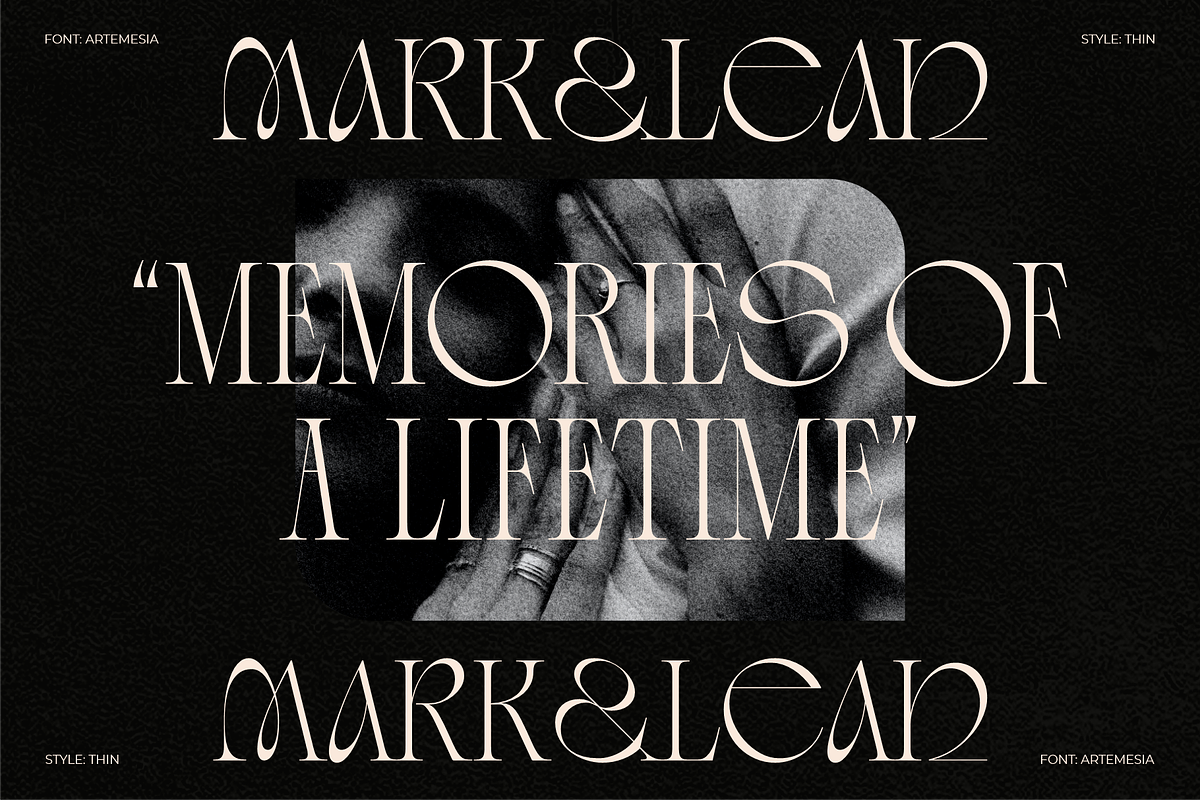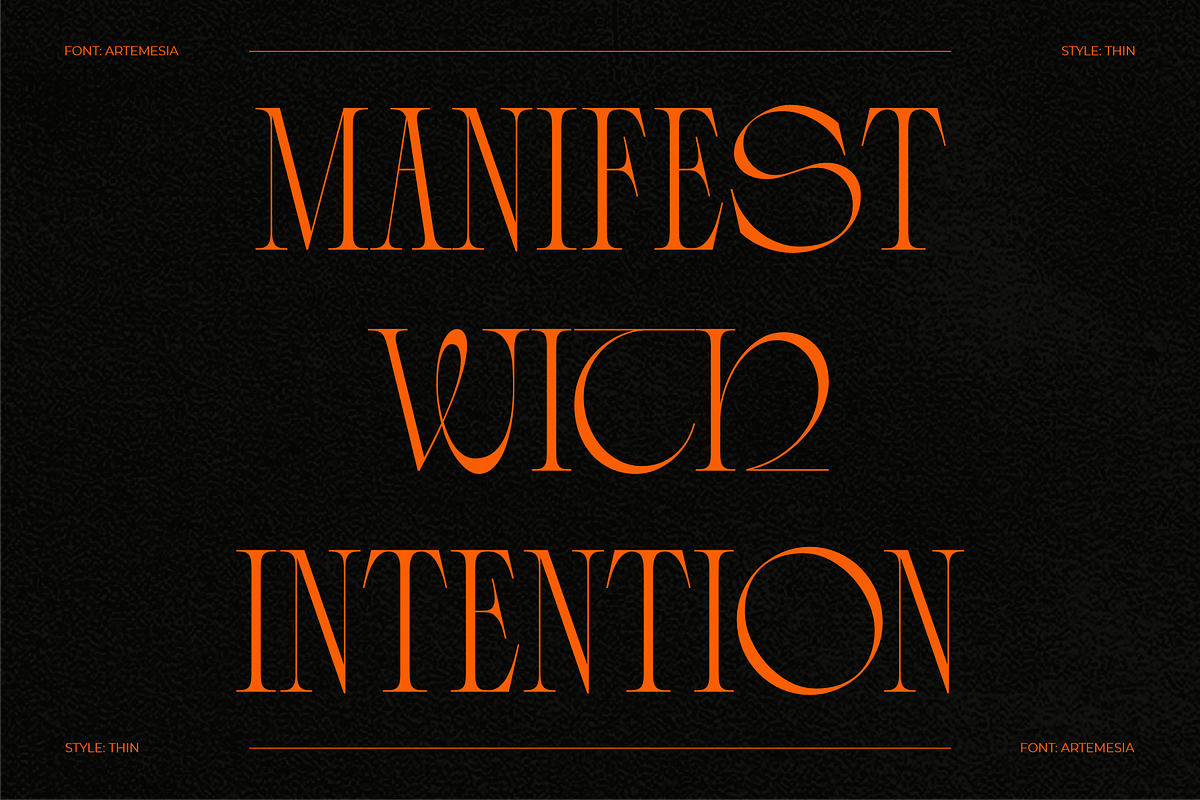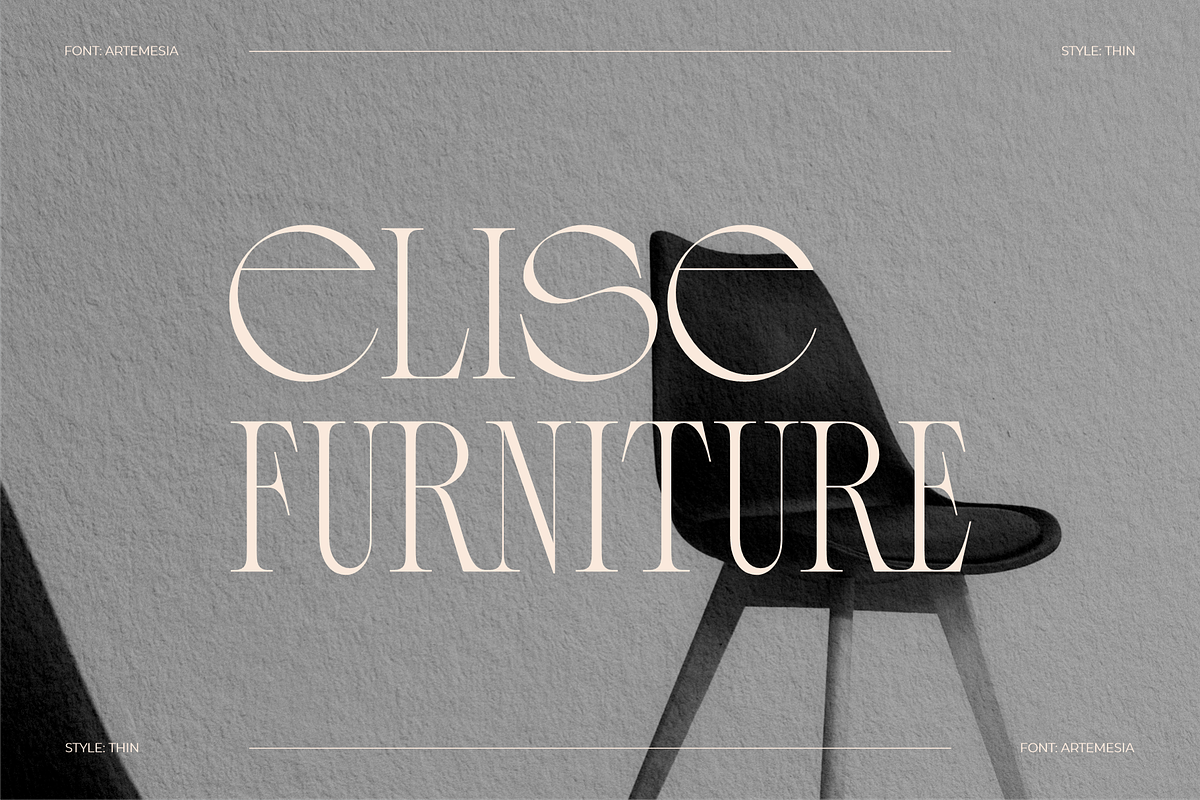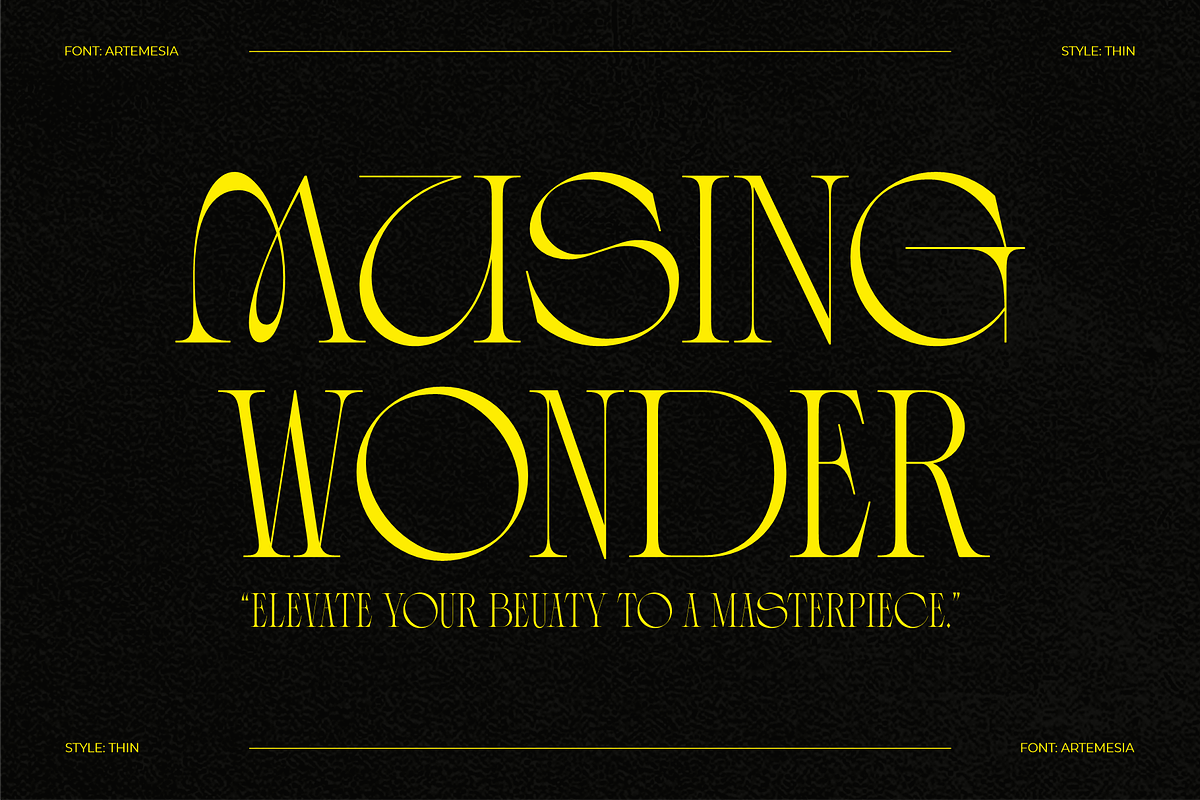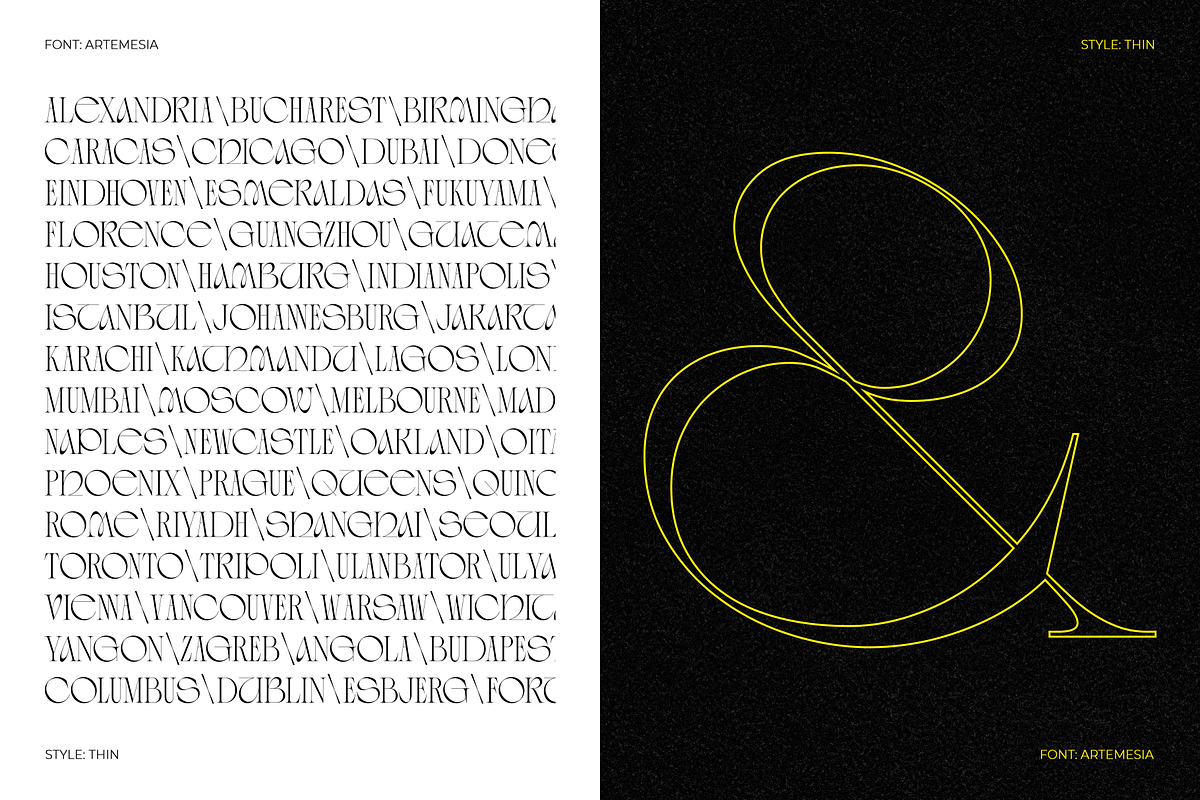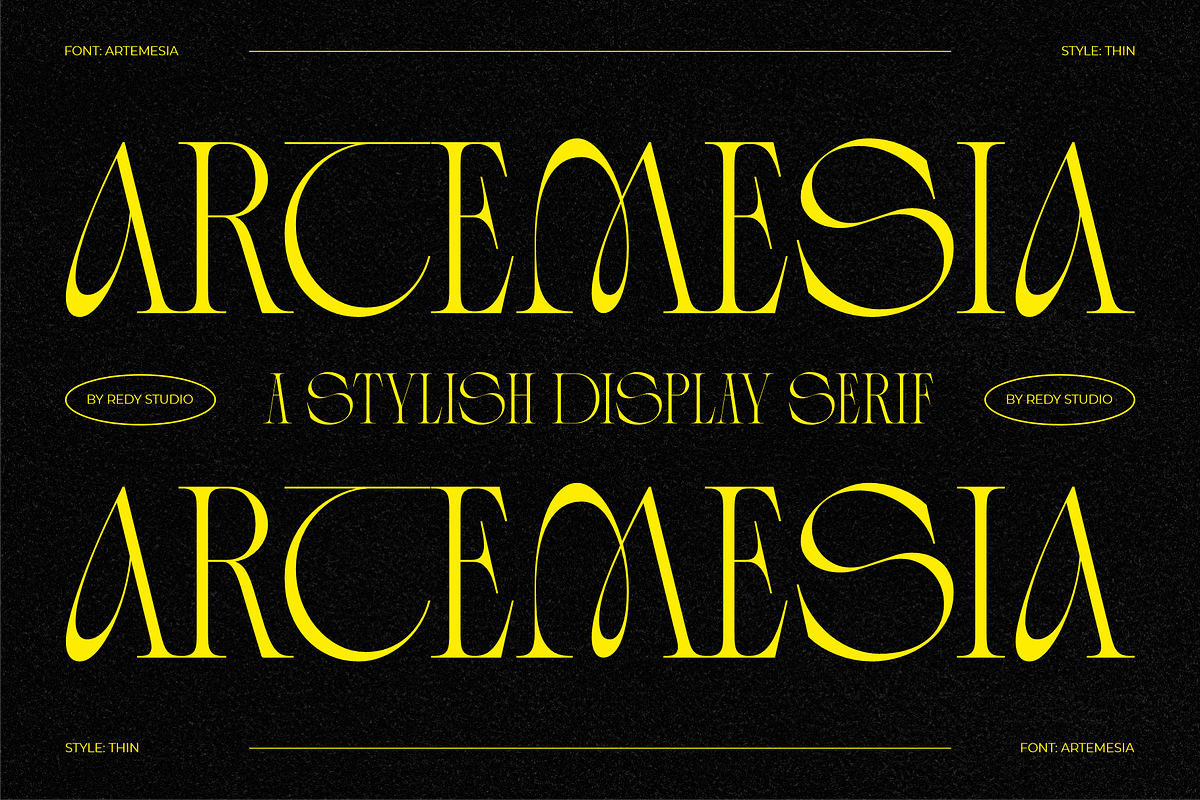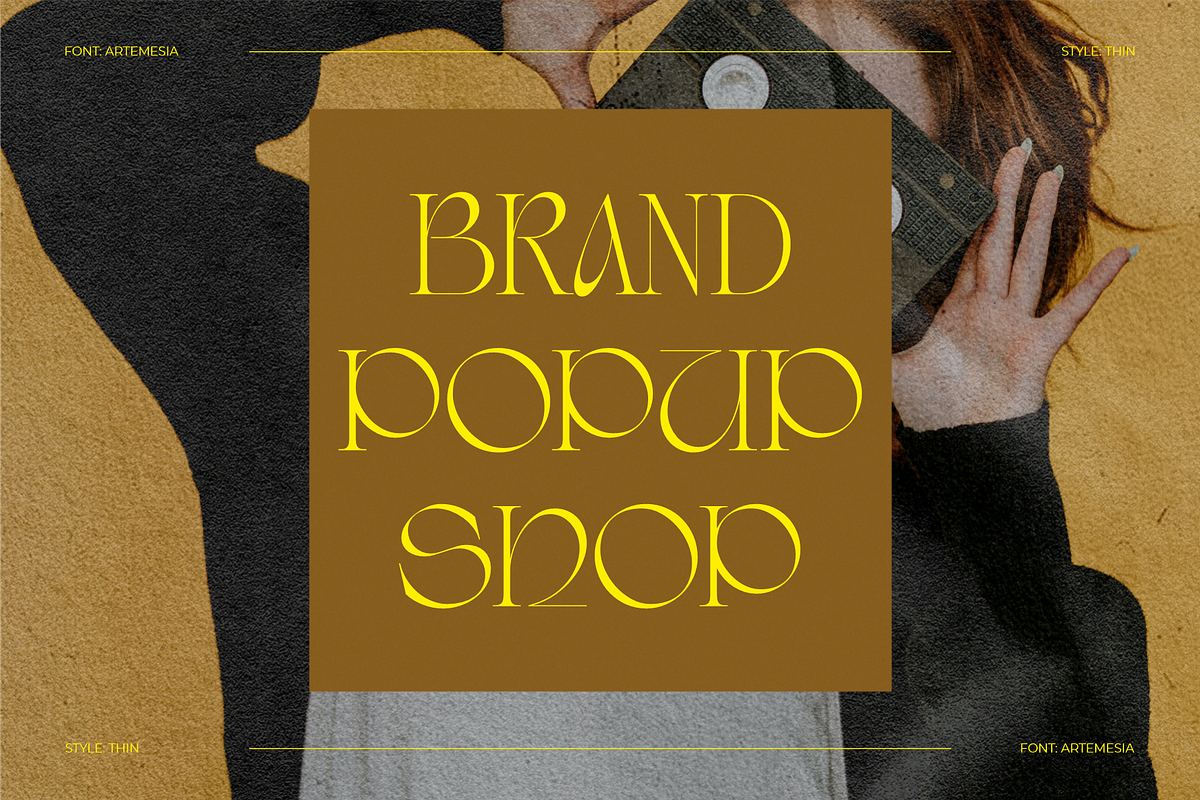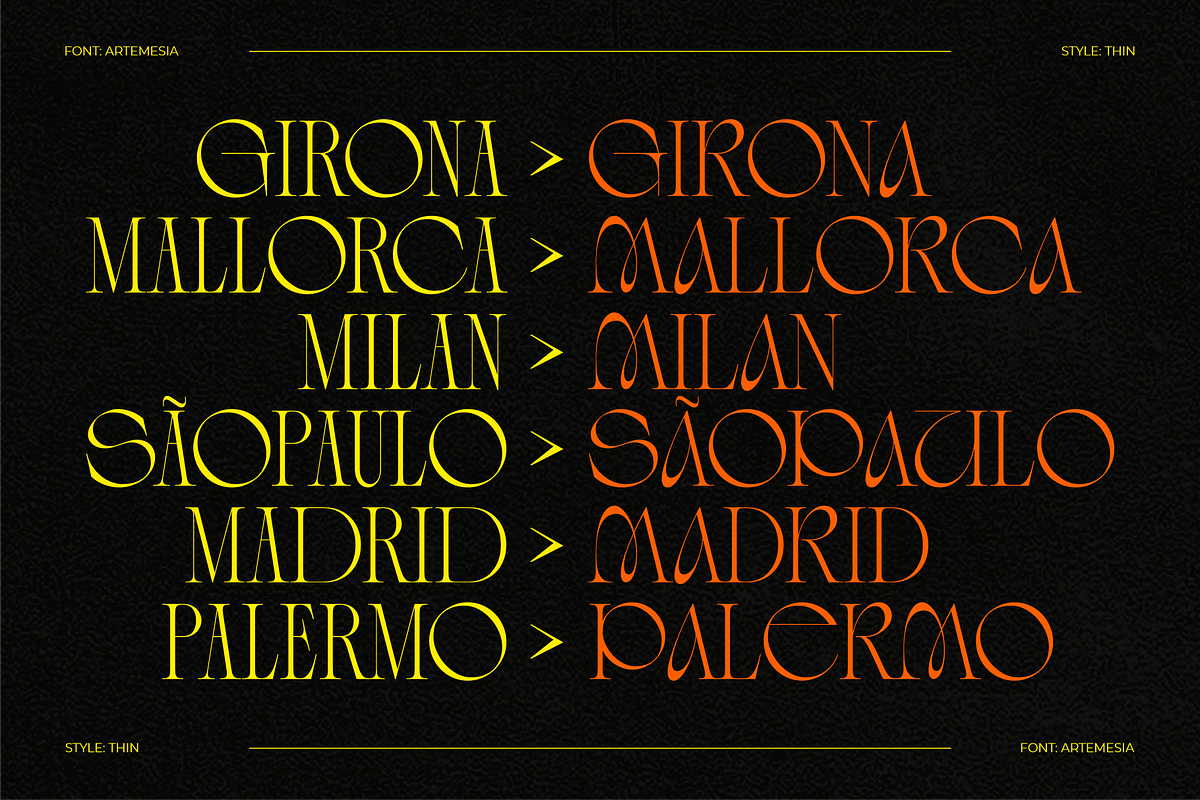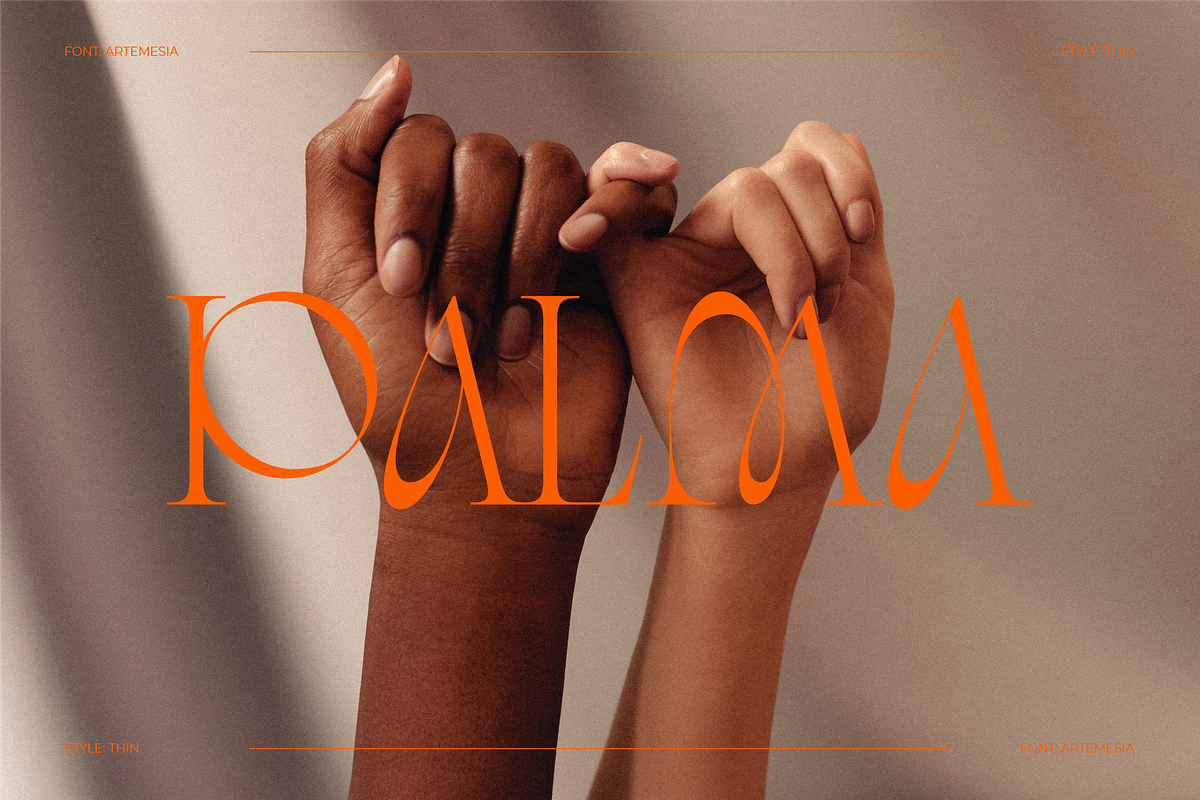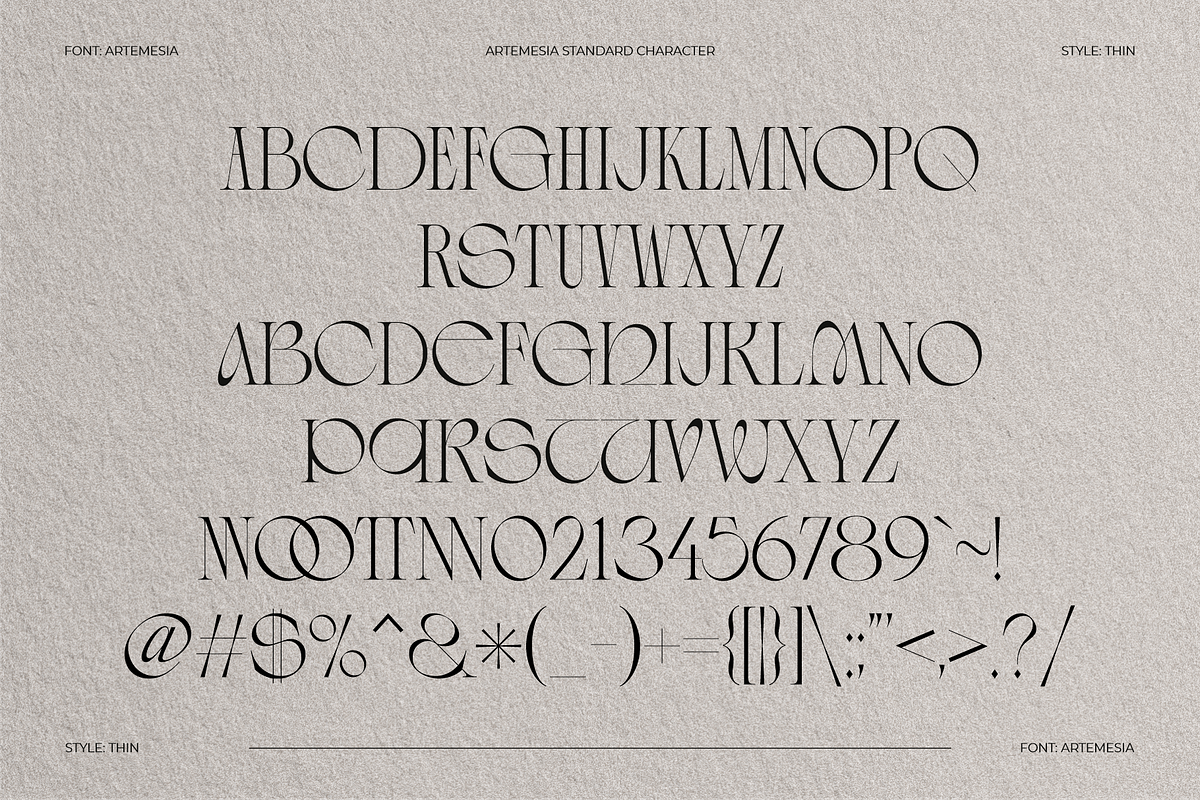
ARTEMESIA – A STYLISH DISPLAY SERIF
Artemesia, a stylish display serif font seamlessly merges elements of modern serif and old serif styles, resulting in a unique and captivating typographic experience. This font combines the elegance of modern serif with the charm of old serif styles, resulting in a captivating and versatile typographic choice.
The old serif aspect of the Artemesia font lies in the uppercase brings a sleek and sophisticated touch to the letterforms. It features clean lines, sharp edges, and a streamlined appearance, reflecting the elegance and professionalism associated with modern design.
In contrast, the modern serif look style incorporated into the Artemesia font lies in the lower case letters. Inspired by today's display serif fonts, this style introduces more ornamental details, slightly curved serifs, and subtle variations in stroke width.